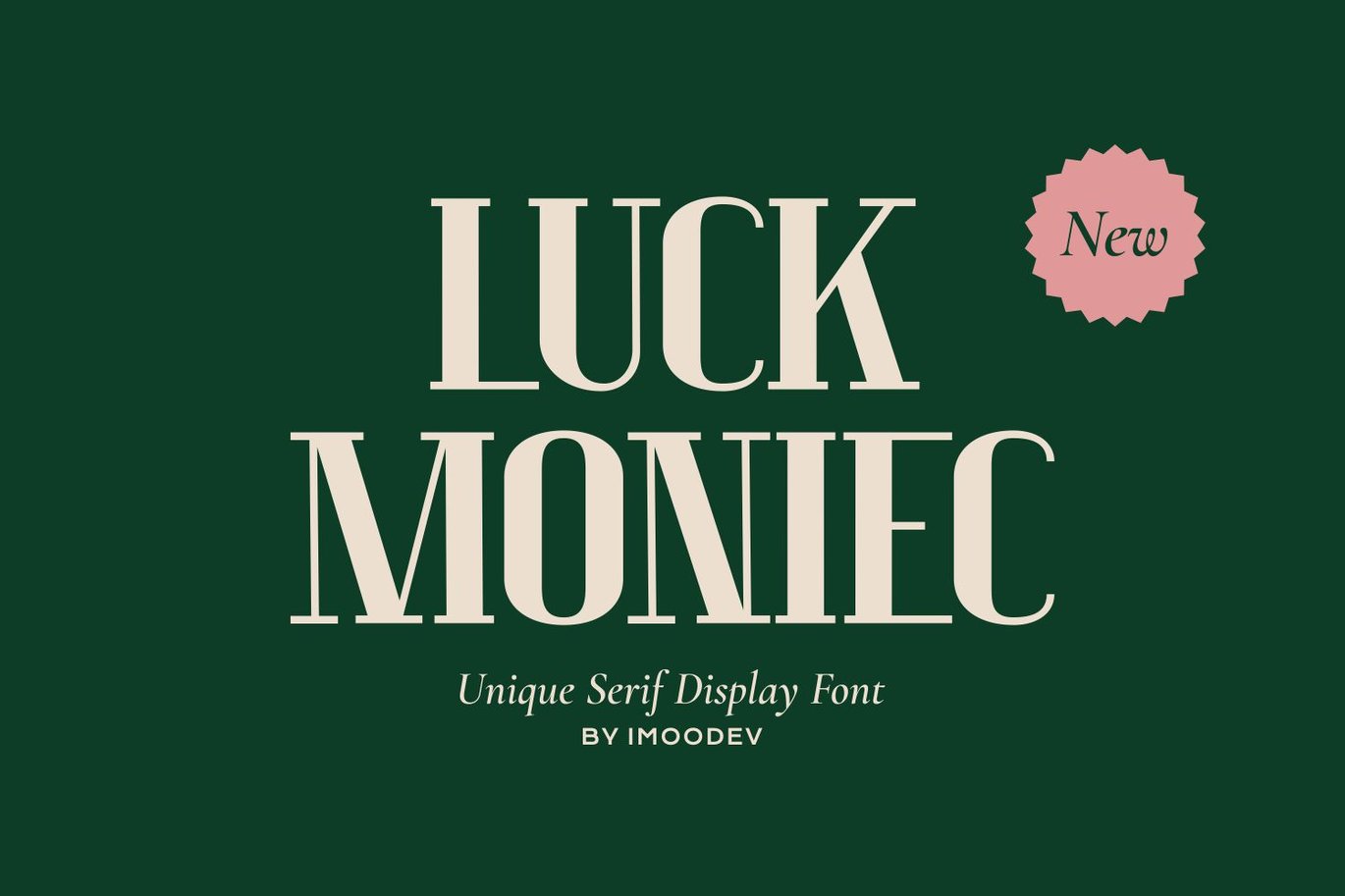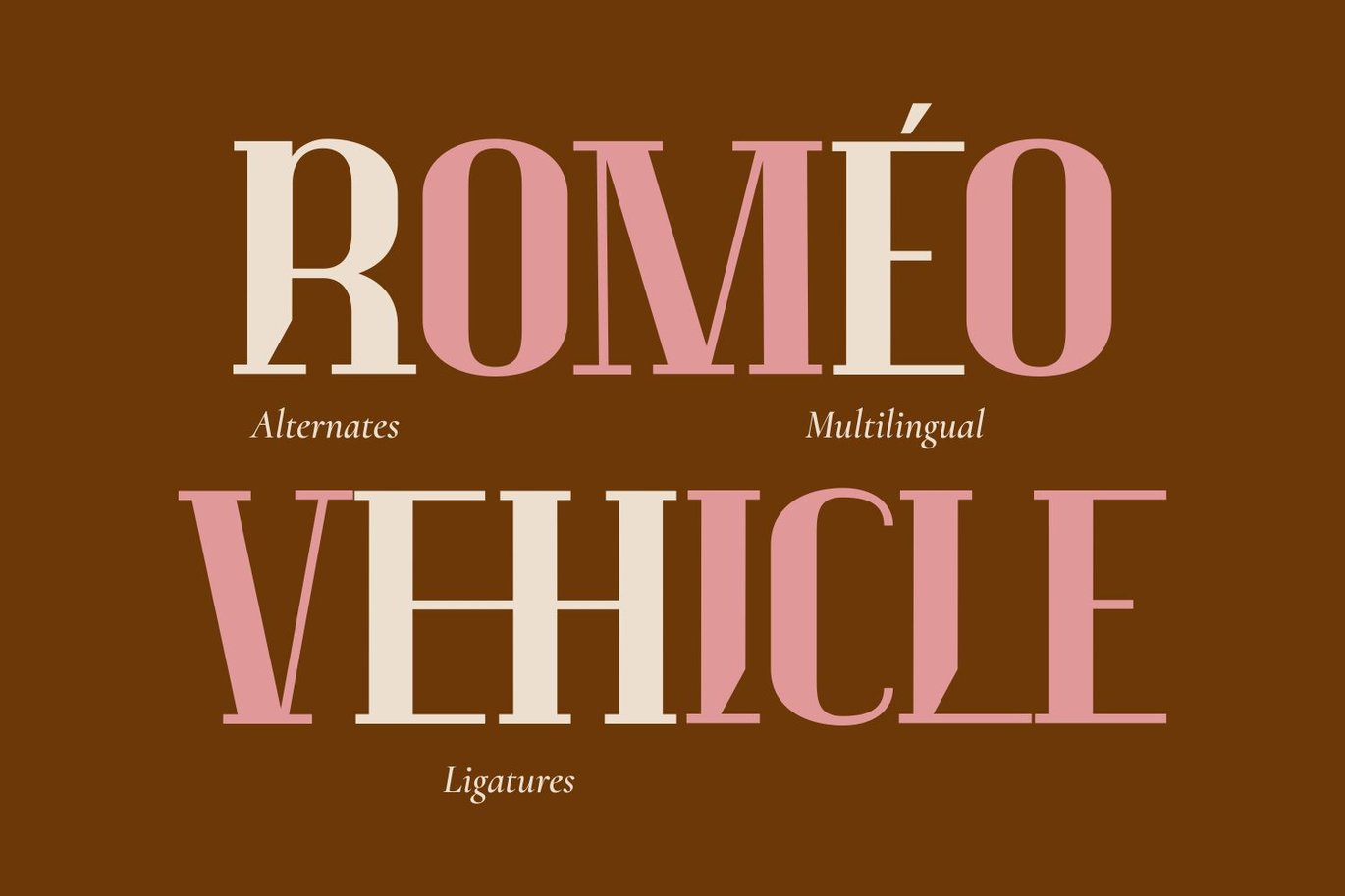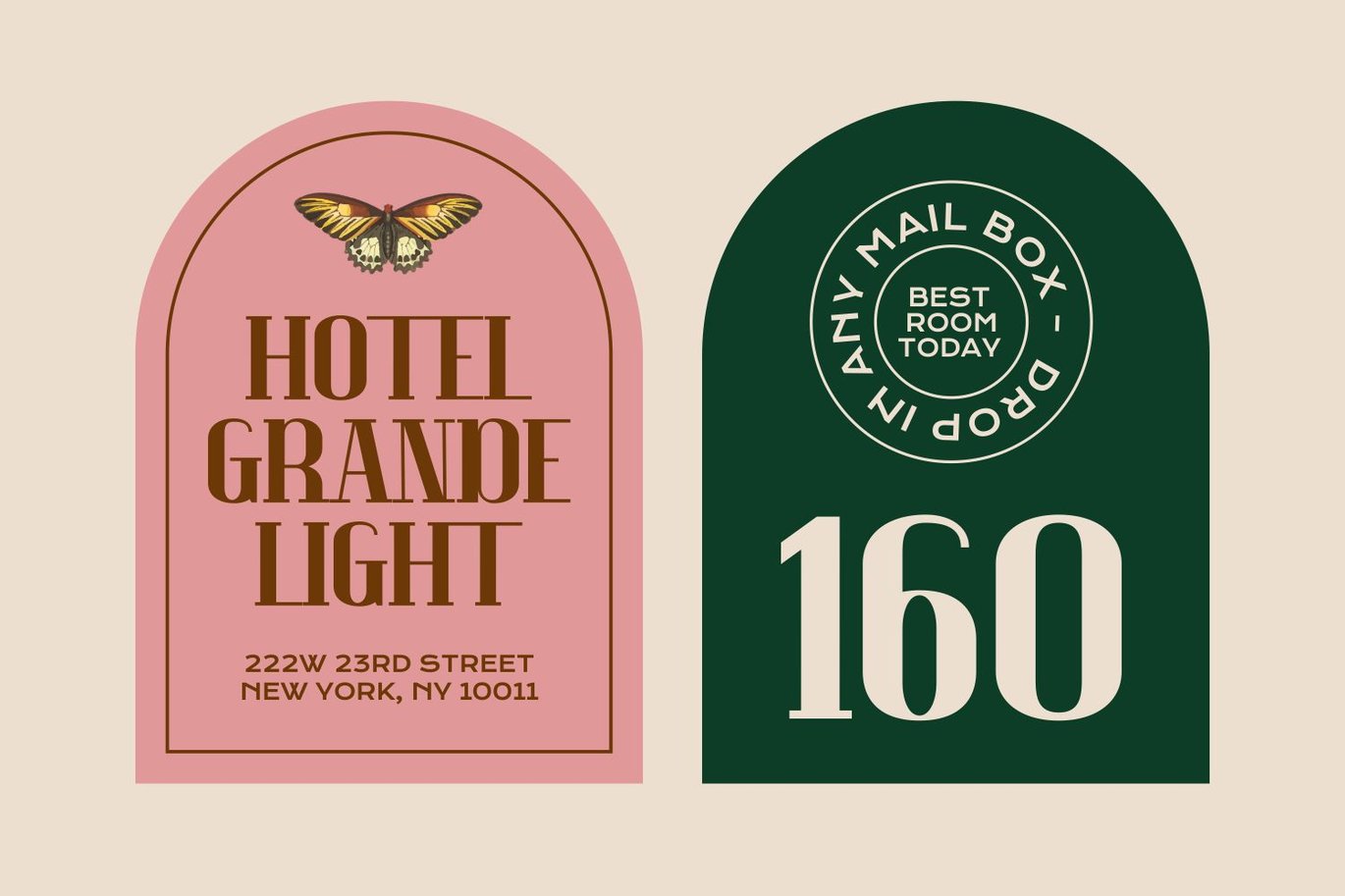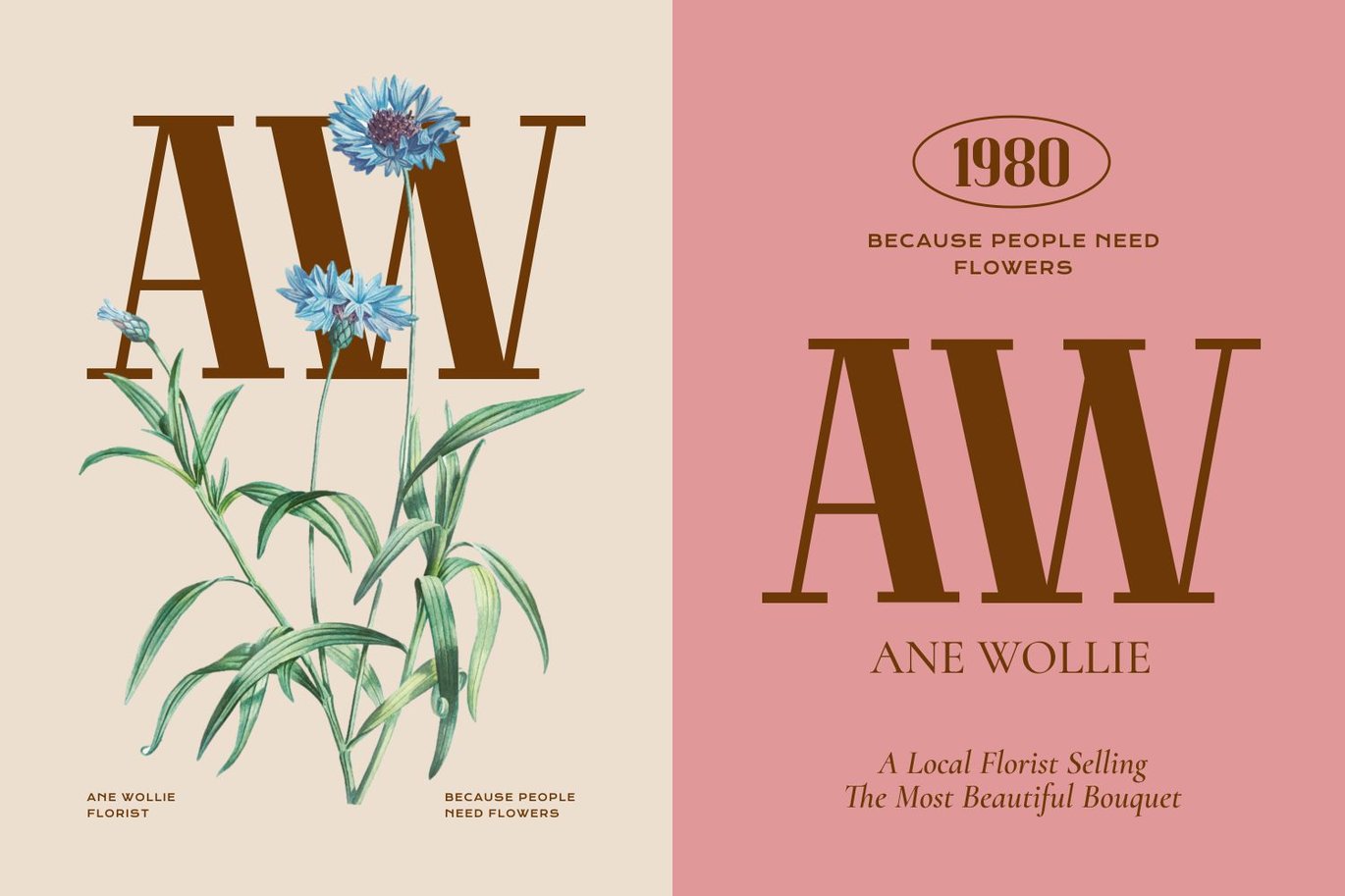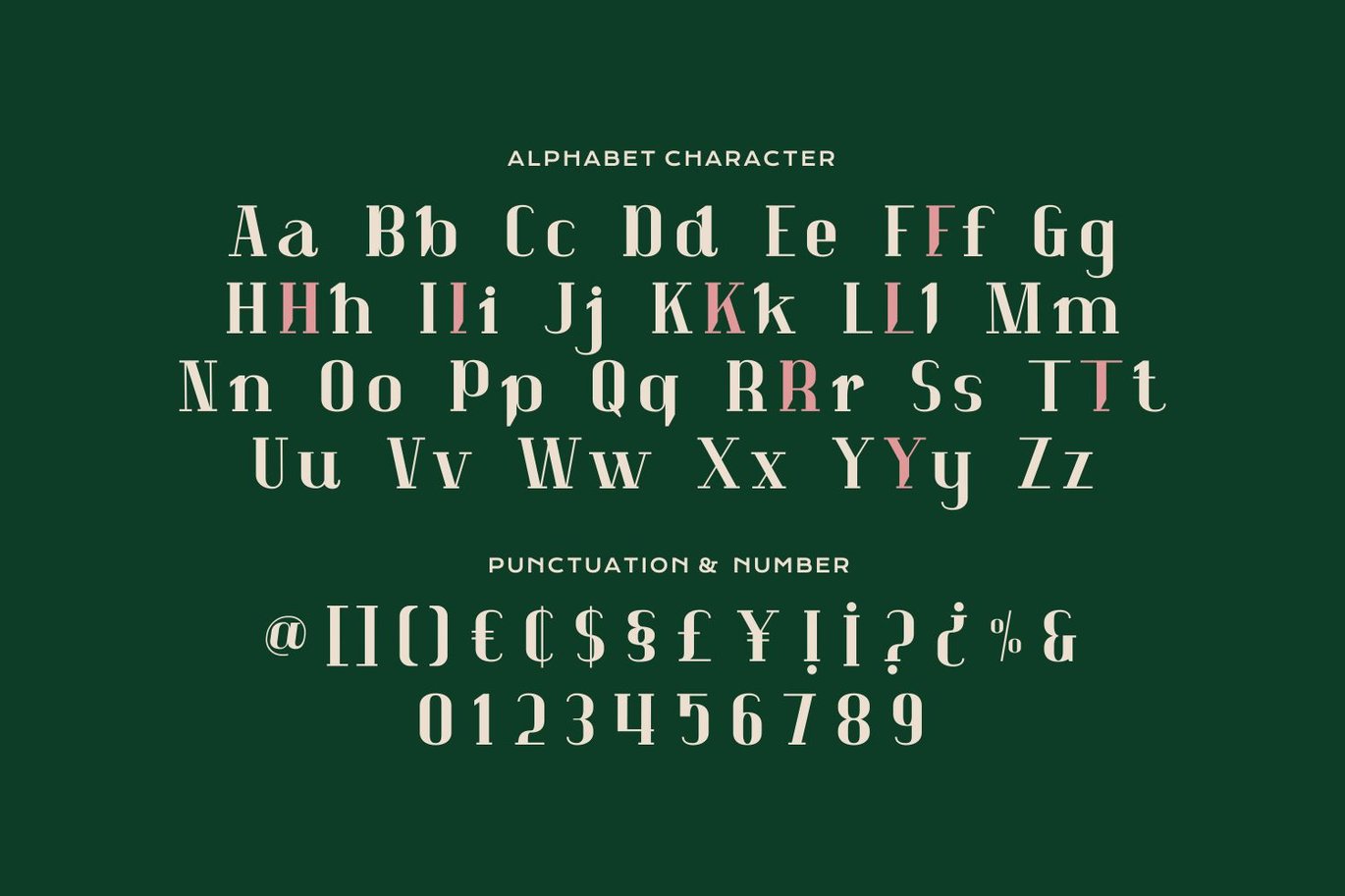
Luck Moniec – Luxury Font
Luck Moniec is a luxury font typeface with visual elegance, smooth curves, and beautiful ligatures clear, making your work look true and attractive.
A versatile font that works in both large and small sizes. This font is suitable for a wide variety of projects such as logos, invitations, branding, magazine, photography, card, product packaging, product mockup, mugs, quotes, posters, labels, signatures, editorials, wedding designs, art deco, and much more.
A font that is perfect for all business sectors including personal projects, studio, corporate, creative agency, industrial, company, etc.